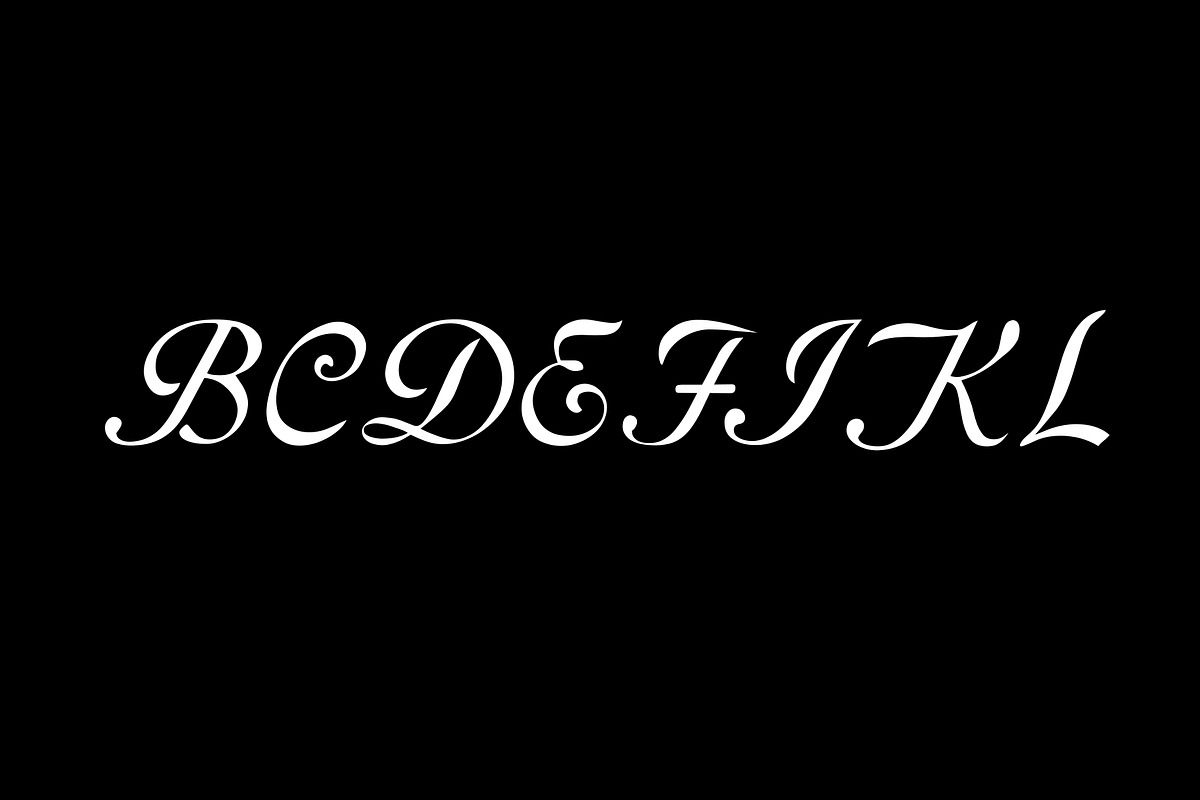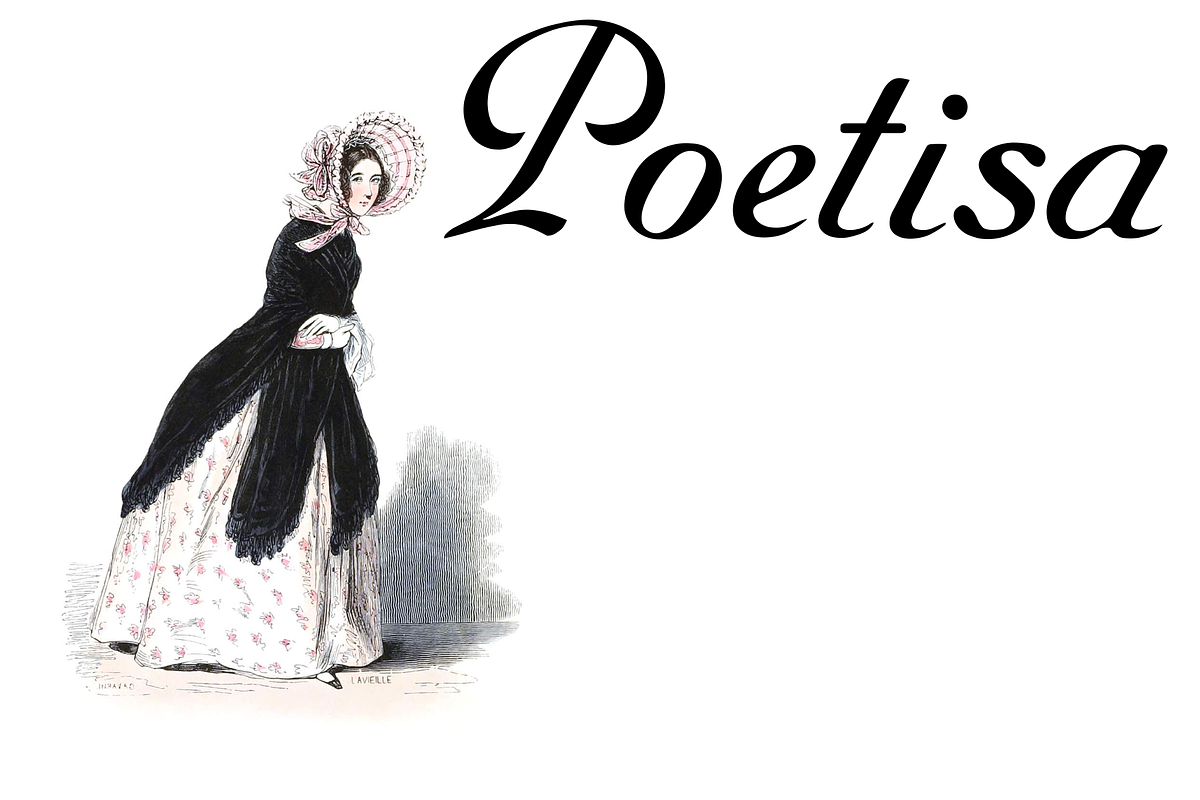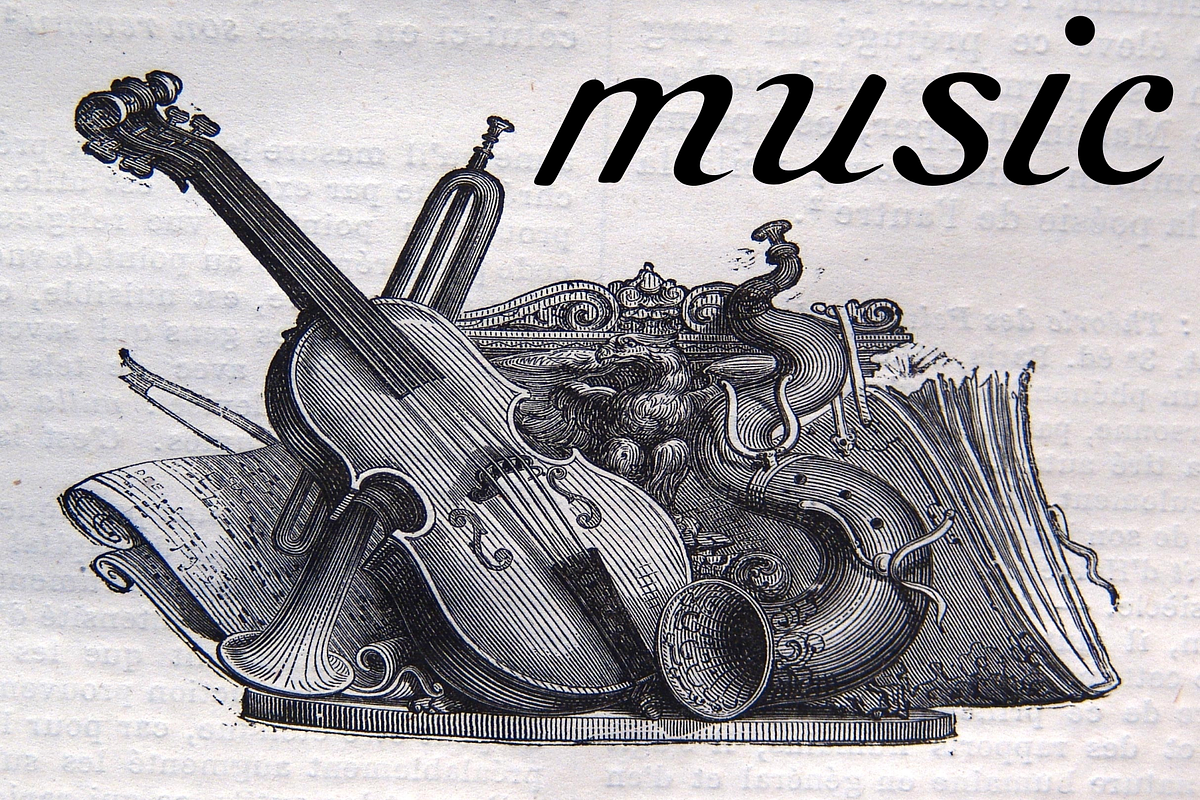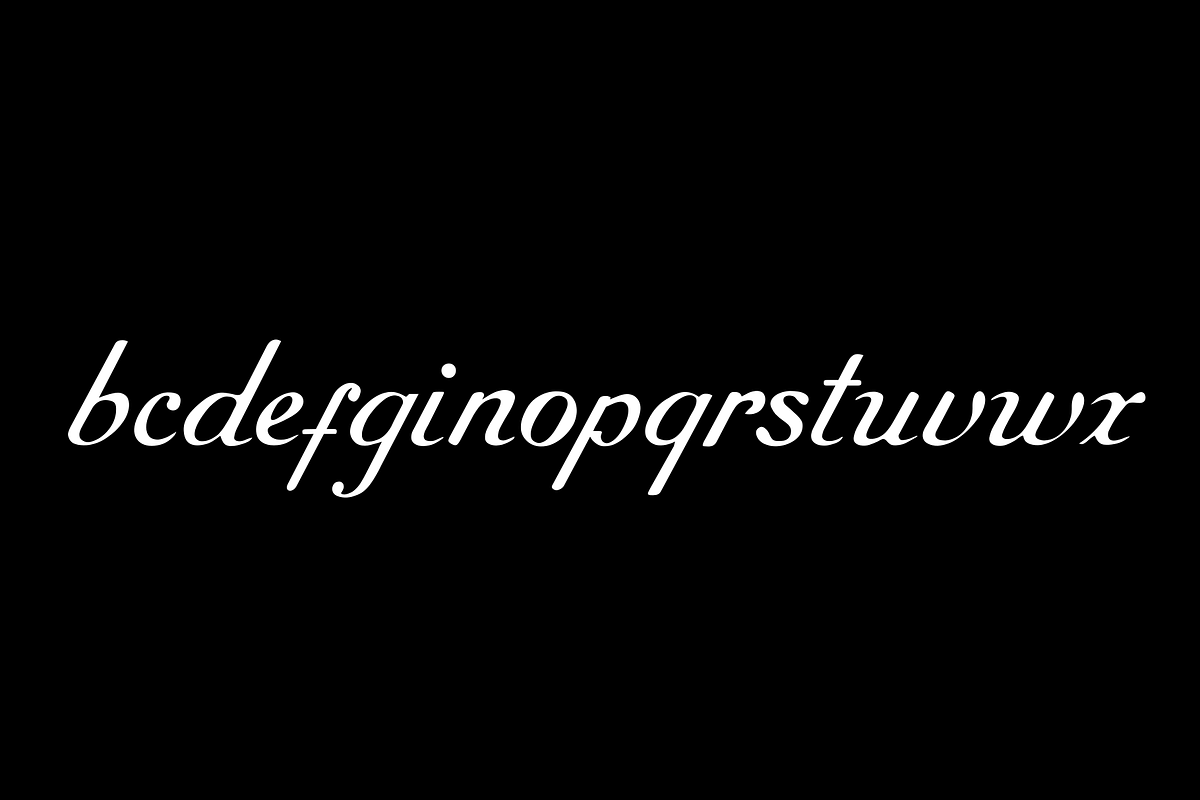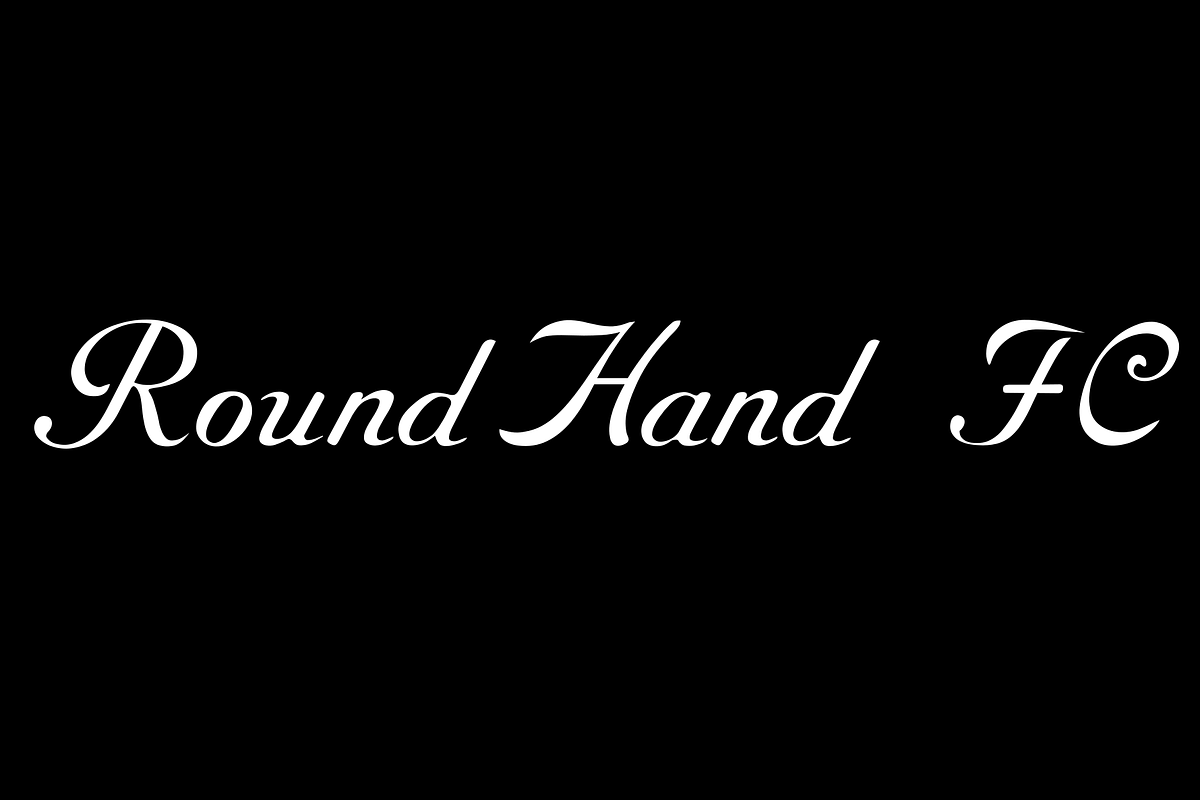
RoundHand FC
RoundHand FC is an naive handwriting font . It is great for branding, quotes, logos, t-shirt designs, tote bag designs, cards, banners, social media, and more.